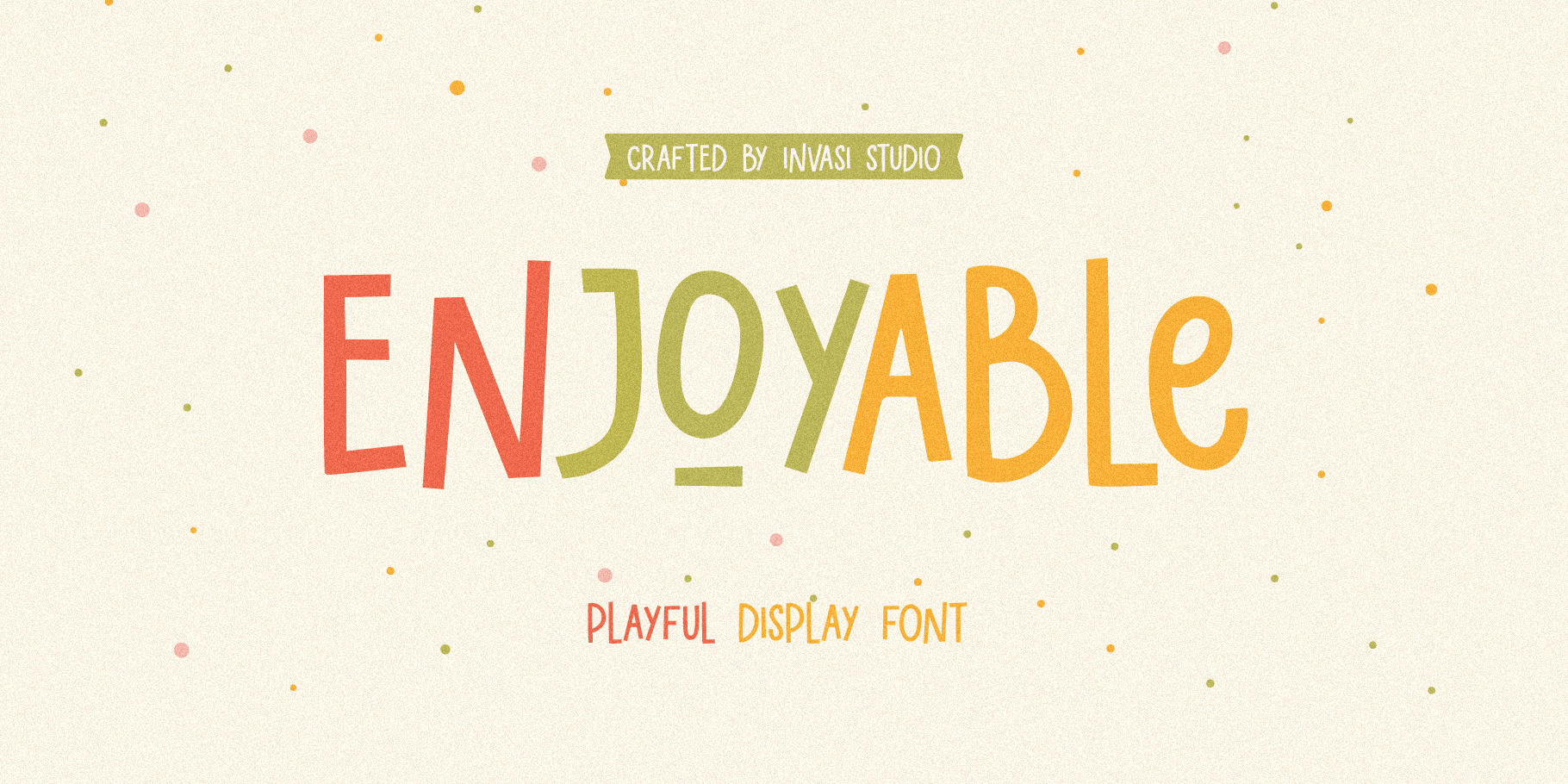
Enjoyable Font is perfect for family entertainment venues, children's product packaging, friendly community events, cheerful greeting cards, positive lifestyle brands, recreational activity centers, casual dining restaurants, uplifting social campaigns, feel-good merchandise, and wholesome brand communications.
Enjoyable Font is exciting because it radiates pure happiness and infectious positivity through cheerful letterforms that instantly lift spirits and create smiles, making it perfect for brands that want to communicate joy, optimism, and the simple pleasure of life's most delightful moments.
The Enjoyable Font family includes regular and bold weights with playful alternates, happiness-inspired ornaments, and joyful decorative elements, providing designers with uplifting tools for creating typography that spreads genuine warmth and creates instant emotional connection with audiences.
When your project needs to spread joy and create positive experiences, Enjoyable Font Free Download delivers the perfect typographic celebration of happiness and good vibes. This delightful display typeface combines emotional warmth with professional functionality, ensuring your brands resonate with audiences seeking genuine positivity and life-affirming experiences. The cheerful letterforms and optimistic styling make this font an essential choice for family brands, community organizations, and any application where happiness, positivity, and emotional well-being are crucial for creating meaningful connections that brighten days and inspire the kind of genuine joy that makes life truly worth celebrating and sharing with others.